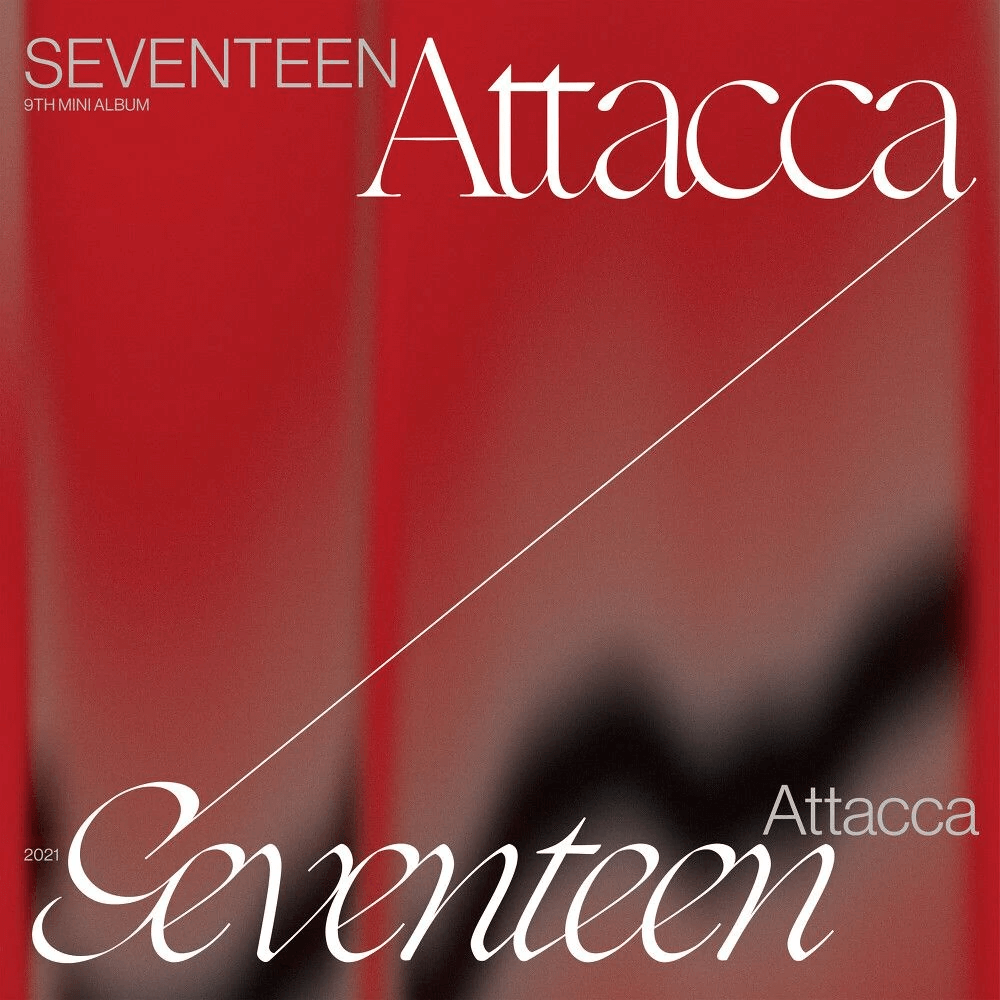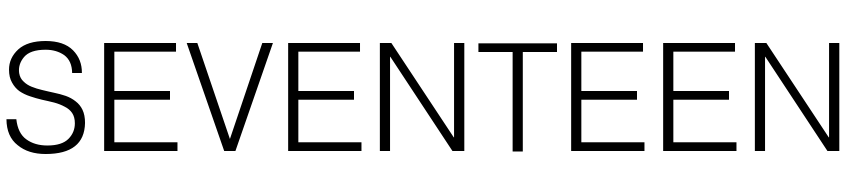
Attacca (Seventeen) Font
The EP title and band name are written in Ogg Regular and Italic fonts, respectively. Ogg is a calligraphic serif typeface created by Sharp Type and inspired by the hand lettering of Oscar Ogg. The sans serif font used appears to be Helvetica.